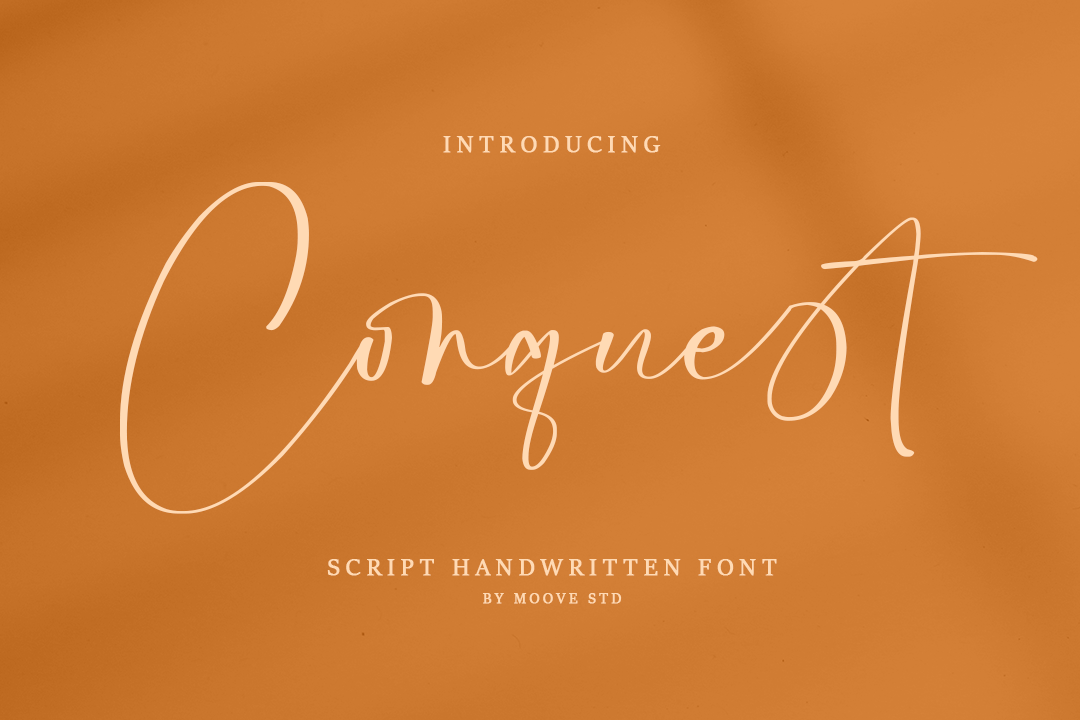
Conquest | Script Handwritten Font
Hi! Introducing my newest font called Conquest.
Conquest is a stylish, thin lettered and relaxed script font. It is PUA encoded which means you can access all of the glyphs and swashes with ease! It will add a luxury spark to any design project that you wish to create!